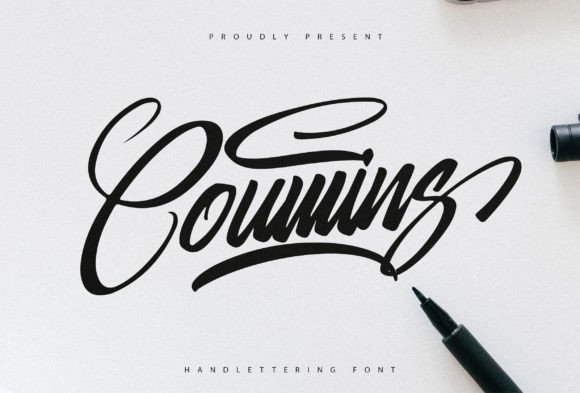
Introducing Coumins Font: Elevate Your Designs with Elegance and Sophistication
In the world of typography, few fonts manage to strike a balance between modern style and timeless elegance. Coumins Font is one such exceptional typeface that embodies the perfect fusion of refinement and fashion. This beautiful handwritten font is designed to bring a touch of sophistication and grace to any design project, making it an ideal choice for discerning designers and crafters.
The Essence of Coumins Font
Coumins is an elegant and fashionable handwritten font that is meticulously crafted to offer a unique blend of style and grace. Each letter in this font is drawn with intricate details, giving it the authentic look and feel of a hand-drawn script. The modern yet refined design of Coumins makes it stand out in the realm of typography, offering a fresh and sophisticated aesthetic that is sure to captivate audiences.
Perfect for High-End Fashion Branding and More
Given its luxurious and polished appearance, Coumins Font is particularly well-suited for high-end fashion branding projects. Whether you’re creating a logo, fashion editorial, or product packaging, this font adds a level of sophistication and elegance that can elevate your brand’s visual identity. Beyond fashion, Coumins is also perfect for designing invitations, wedding cards, and other projects that call for a personal and refined touch.
Key Features of Coumins Font
- Elegant Handwritten Design: Coumins boasts a beautiful, hand-crafted design that brings a personal touch to any project.
- Intricate Details: Each letter is carefully designed with intricate details, ensuring a unique and luxurious feel.
- Modern yet Refined: The font strikes a perfect balance between modern style and classic elegance, making it versatile for various design applications.
- High-End Aesthetic: Ideal for projects that require a sophisticated and luxurious look, such as high-end fashion branding and premium product packaging.
Why Choose Coumins Font?
For designers and crafters looking to infuse their projects with a sense of style and sophistication, Coumins Font is an excellent choice. Its unique blend of modernity and elegance ensures that your designs stand out, making it perfect for those who aim to create memorable and impactful visual experiences. Moreover, the font’s versatility means it can be used across a wide range of projects, from digital designs to print materials.
Tips for Using Coumins Font Effectively
To make the most of Coumins Font, consider the following tips:
- Pair with Complementary Fonts: Combine Coumins with simpler, sans-serif fonts for headings and body text to create visual contrast and hierarchy.
- Use for Accent Text: Utilize Coumins for titles, headings, or quotes to add a touch of elegance and draw attention.
- Experiment with Colors: While Coumins looks stunning in classic black and white, don’t be afraid to experiment with colors that match your brand’s palette or project theme.
Coumins Font is a remarkable addition to any designer’s toolkit, offering a unique blend of elegance, sophistication, and modern style. Its intricate design and luxurious feel make it the perfect choice for high-end fashion branding, invitations, and a myriad of other projects that demand a personal and polished touch. By incorporating Coumins into your design repertoire, you’ll be well-equipped to create visually stunning and memorable projects that leave a lasting impression.
Whether you’re a professional designer or a crafter with a keen eye for detail, Coumins Font invites you to explore new dimensions of creativity and style. So, why settle for ordinary when you can elevate your designs with the elegance and sophistication of Coumins?